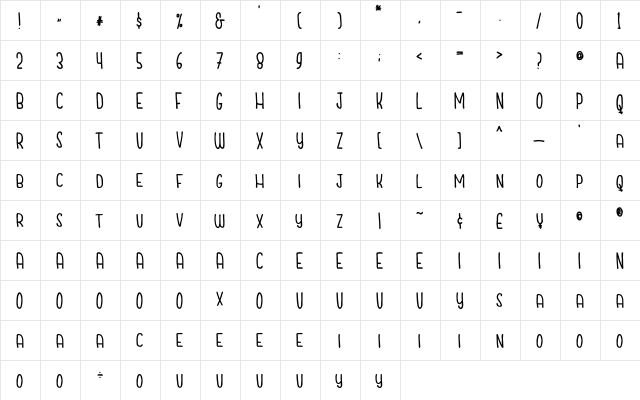
Cuties Caps Regular
| Foundry | Greataris |
| Designer | Greataris |
Design Context for Cuties Caps Typeface
Cuties Caps is a composed and adaptable typeface that performs quietly and consistently across a wide range of design contexts.